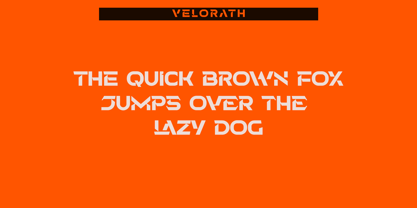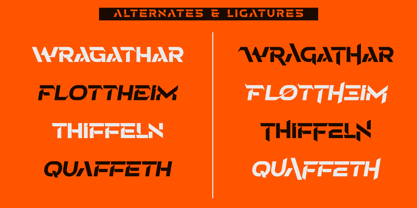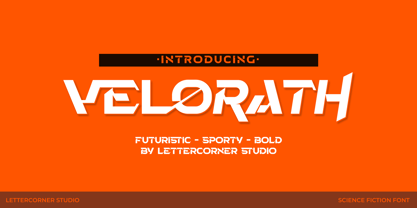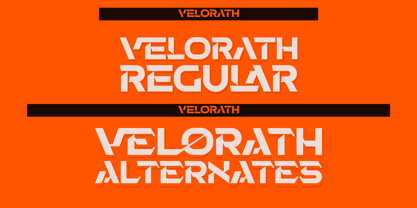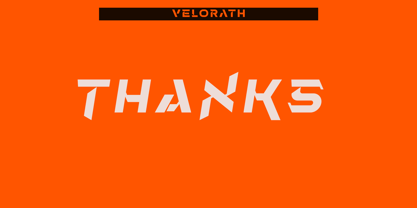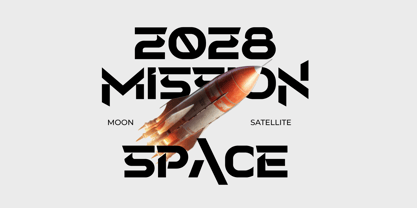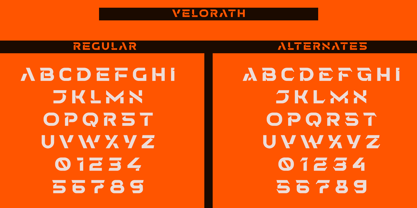
Velorath
Velorath is a futuristic sci-fi display typeface that pushes the boundaries of modern type design. Inspired by the cold vastness of deep space and the precision of advanced technology, Velorath delivers a commanding visual presence — sharp where it needs to be, refined where it matters most.
Designed for designers who refuse to settle for ordinary, Velorath is equally at home on a film poster, a game title screen, a luxury packaging label, or a bold editorial spread. Its letterforms carry a sense of forward momentum — as if each character is already in motion, already heading somewhere beyond the horizon.
The typeface comes in four styles: Regular, Italic, Alternates, and Alternates Italic — giving you full creative flexibility to mix, match, and unlock unique features including carefully crafted ligatures (fi, fl, ff, ffi, ffl, th) and stylistic alternates for characters like A, G, Q, R, W, and Y.
What makes Velorath stand apart is its dual nature: it feels futuristic yet legible, experimental yet purposeful. Whether you're building a space opera brand, a dystopian editorial layout, or a premium product identity, Velorath gives your work the authority it deserves.
— Features —
· 4 styles: Regular, Italic, Alternates, Alternates Italic
· Ligatures: fi, fl, ff, ffi, ffl, th, tt
· Stylistic alternates for key characters
· Full uppercase and lowercase character sets
· Numerals, punctuation, and extended glyphs
· Ideal for display use: titles, logos, posters, covers, packaging
Velorath is not just a font. It is a statement.